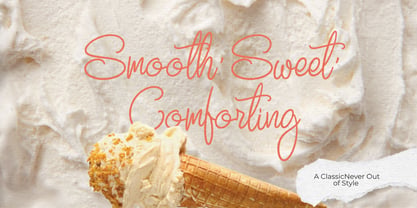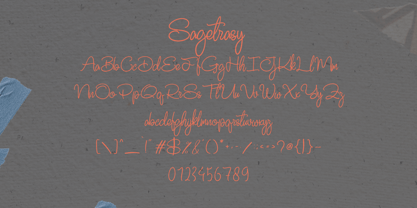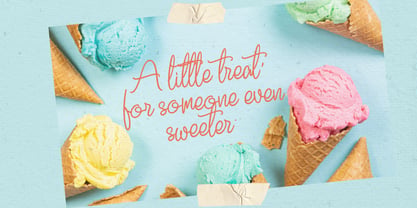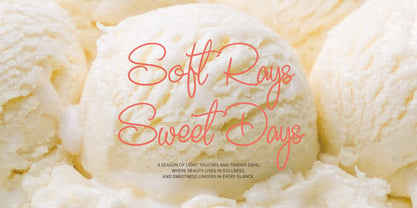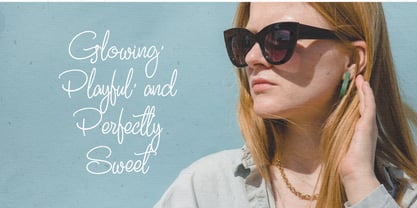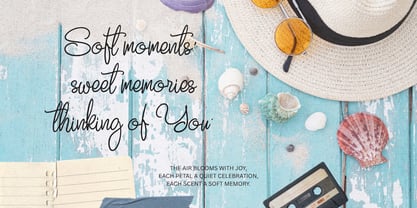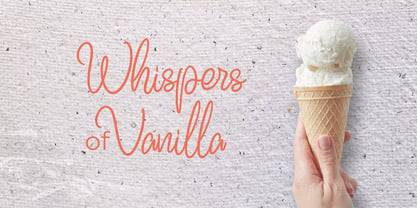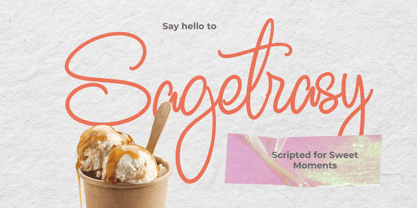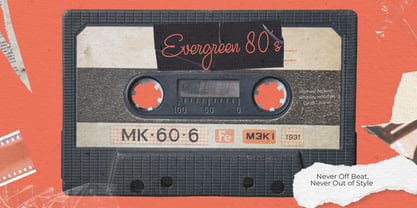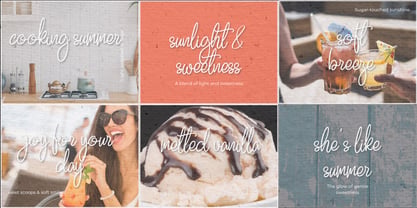
Sagetrasy
by Gatype
The Sagetrasy Font Family was designed by khaidir and published by Gatype. Sagetrasy contains 1 styles. More about this family
Sagetrasy – A Delicate Script Font for Sweet Moments
Sagetrasy is a graceful and refined script typeface crafted to bring softness and charm to your designs. With its flowing strokes, smooth curves, and balanced rhythm,
Sagetrasy evokes a sense of warmth, sincerity, and timeless elegance — ideal for projects that celebrate love, emotion, and meaningful connections.
Designed for versatility, Sagetrasy shines in wedding stationery, baby announcements, feminine branding, packaging, and heartfelt social media graphics. Its gentle character pairs beautifully with serif or sans-serif companions, making it a reliable choice for both print and digital use.
Designers: khaidir
Foundry: Gatype